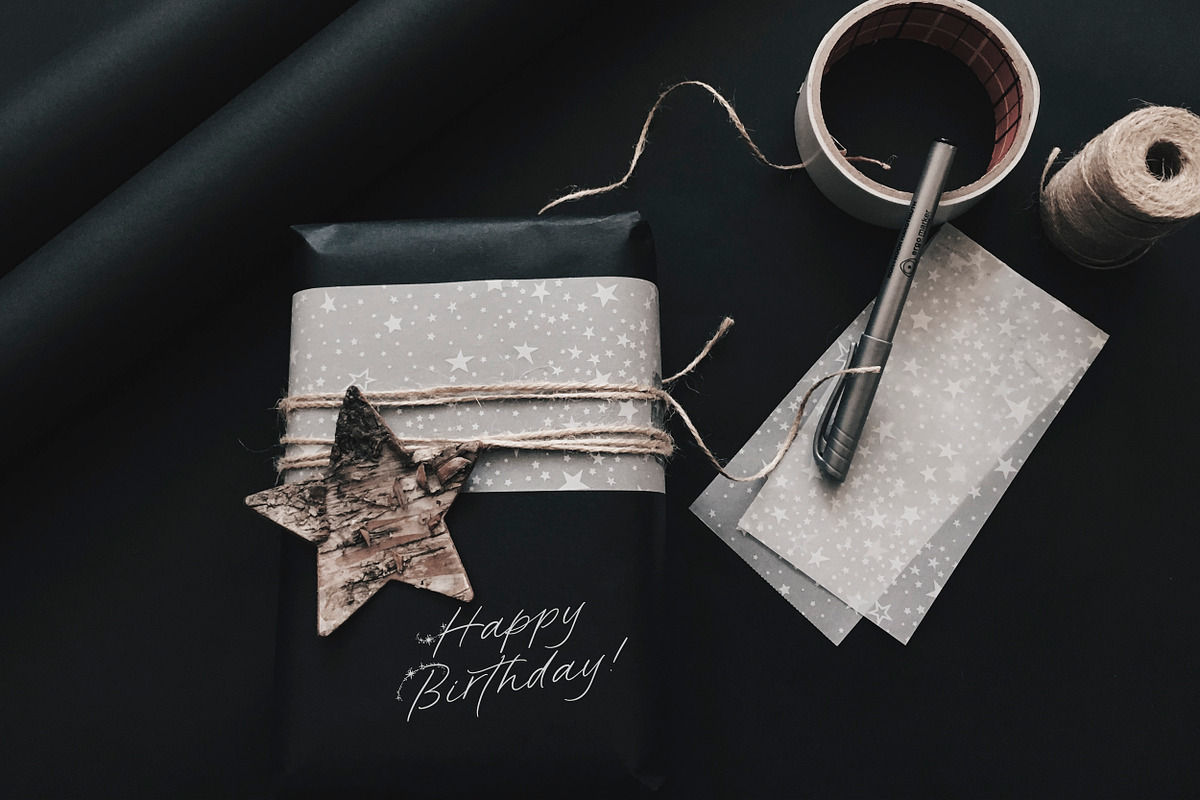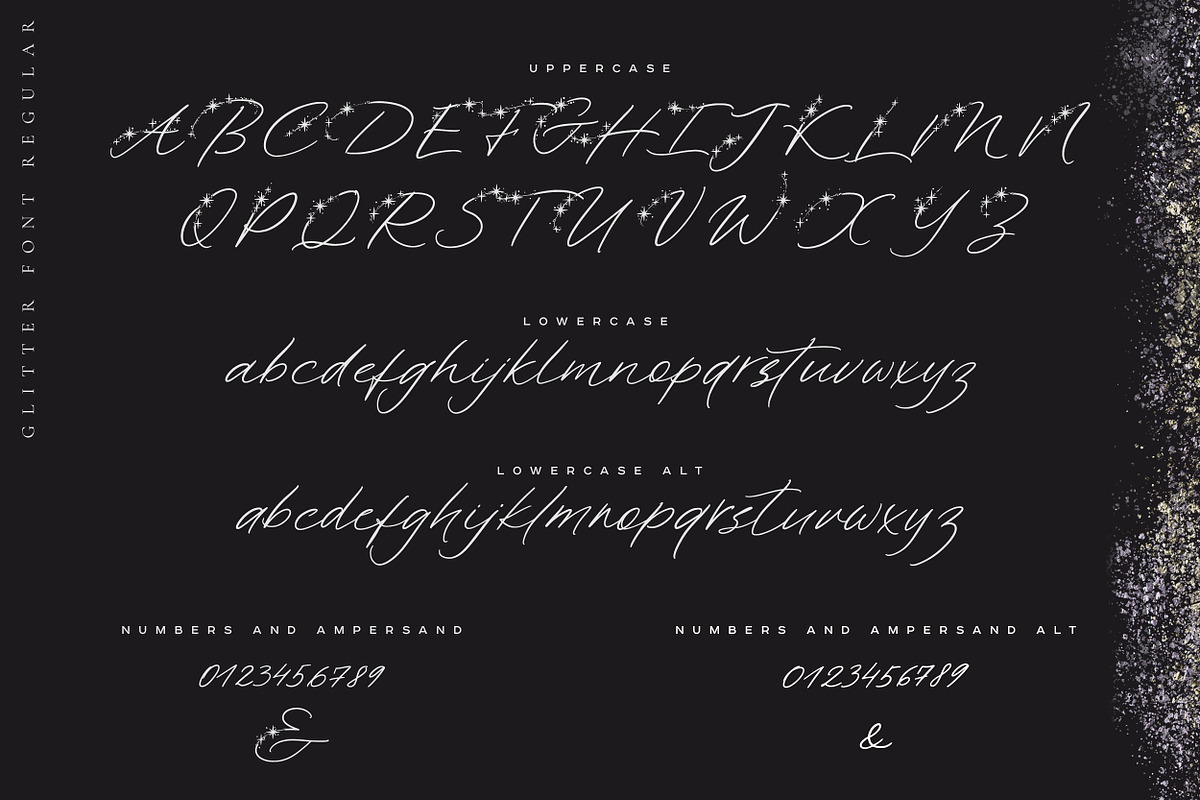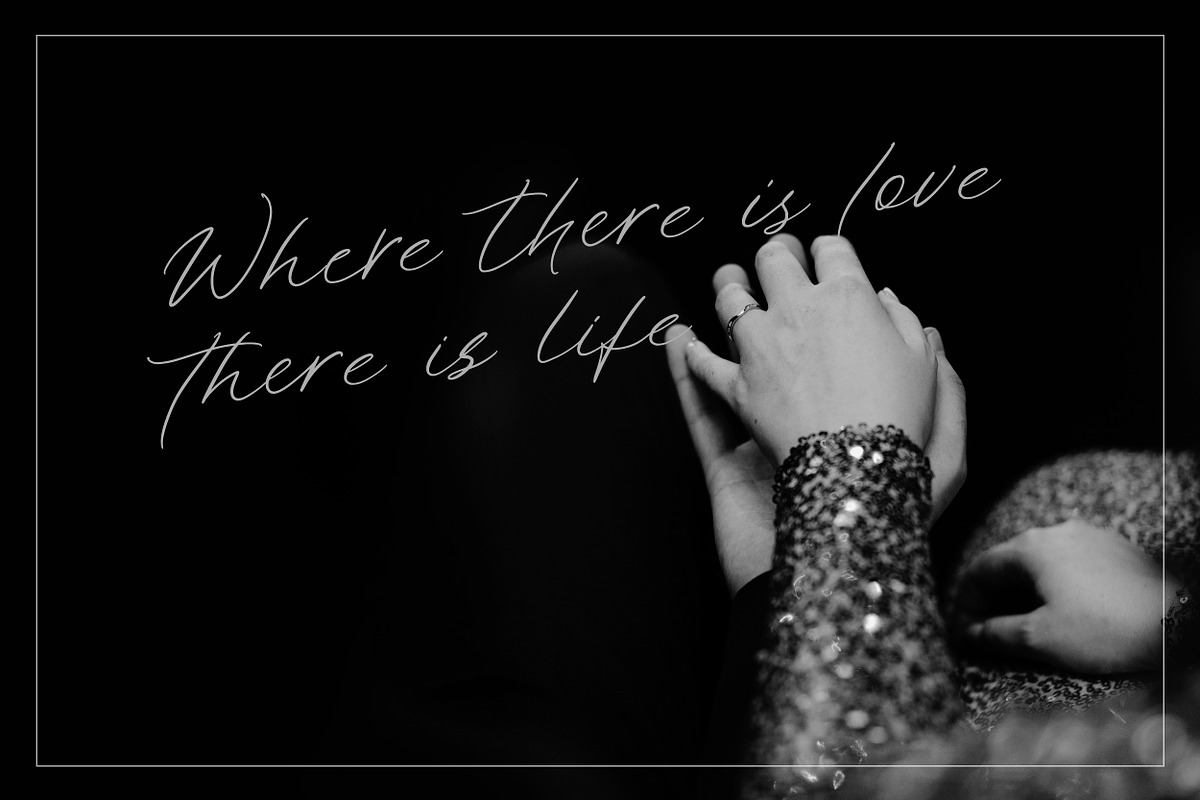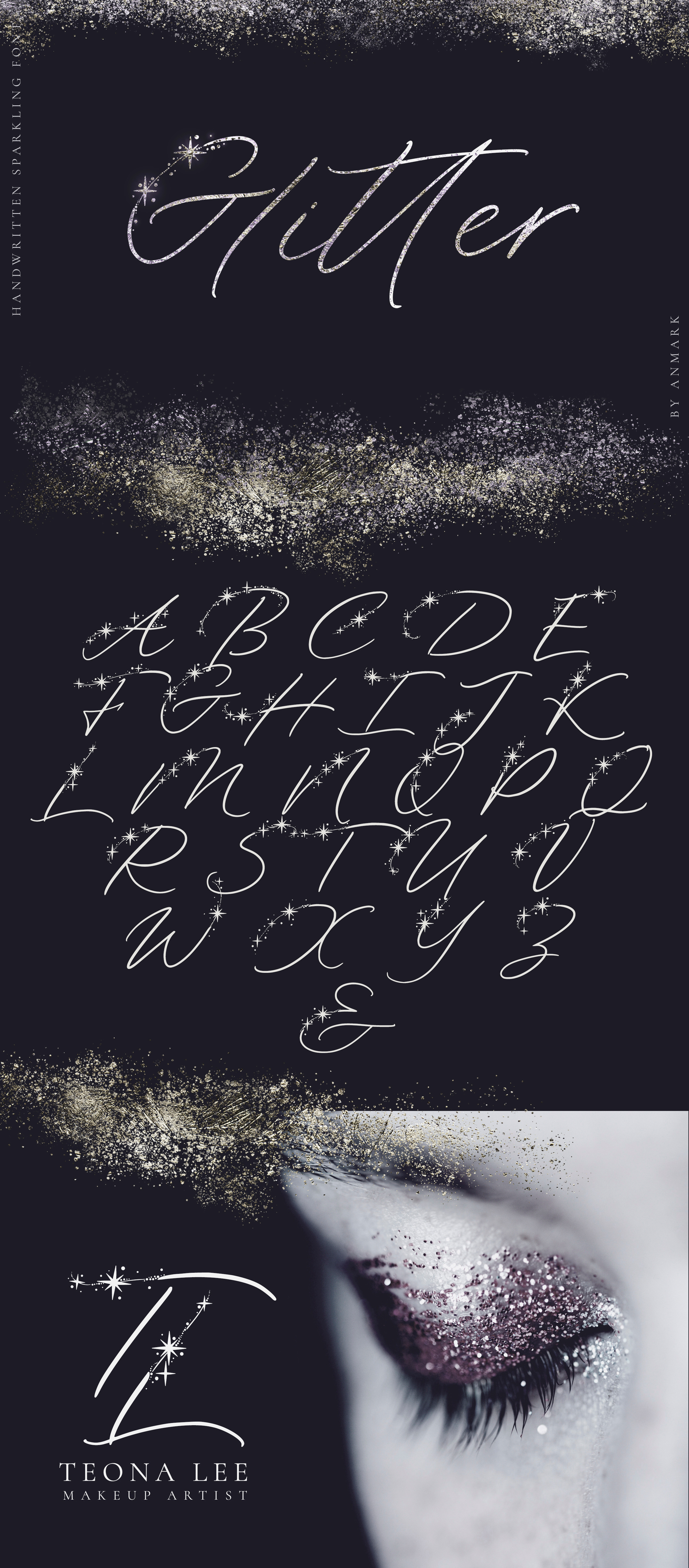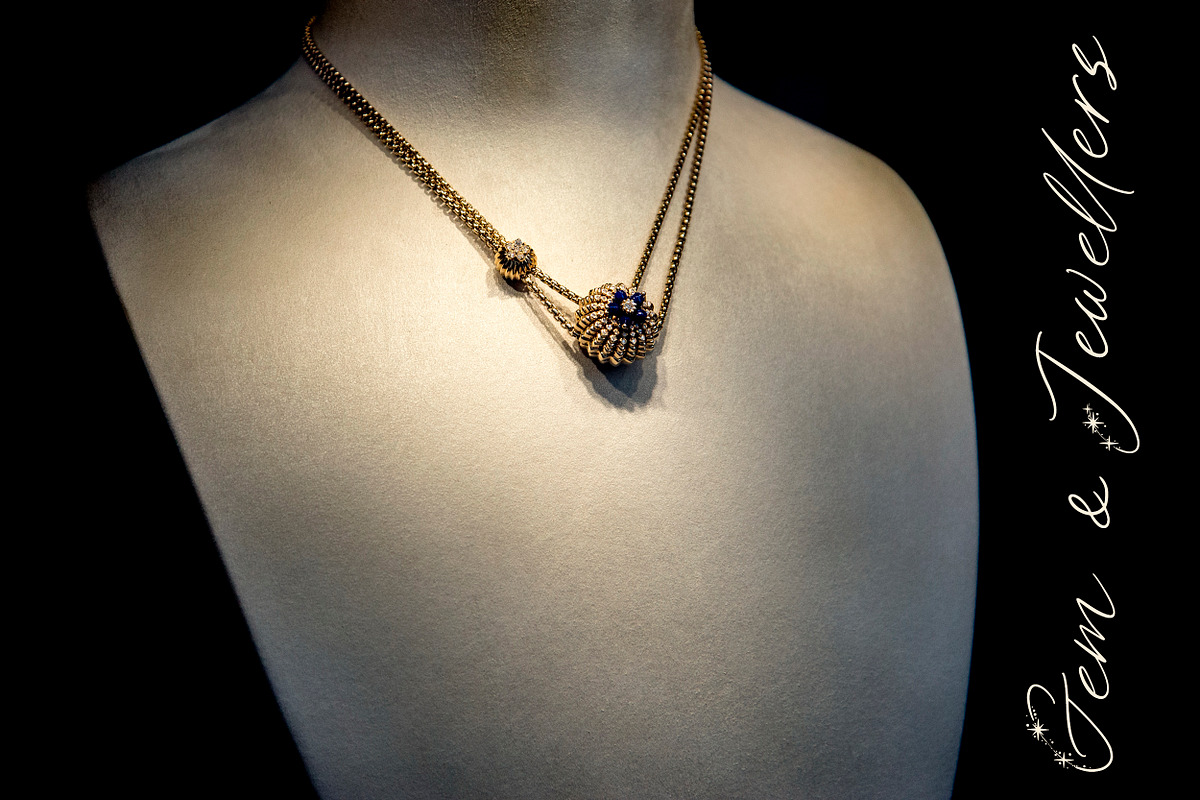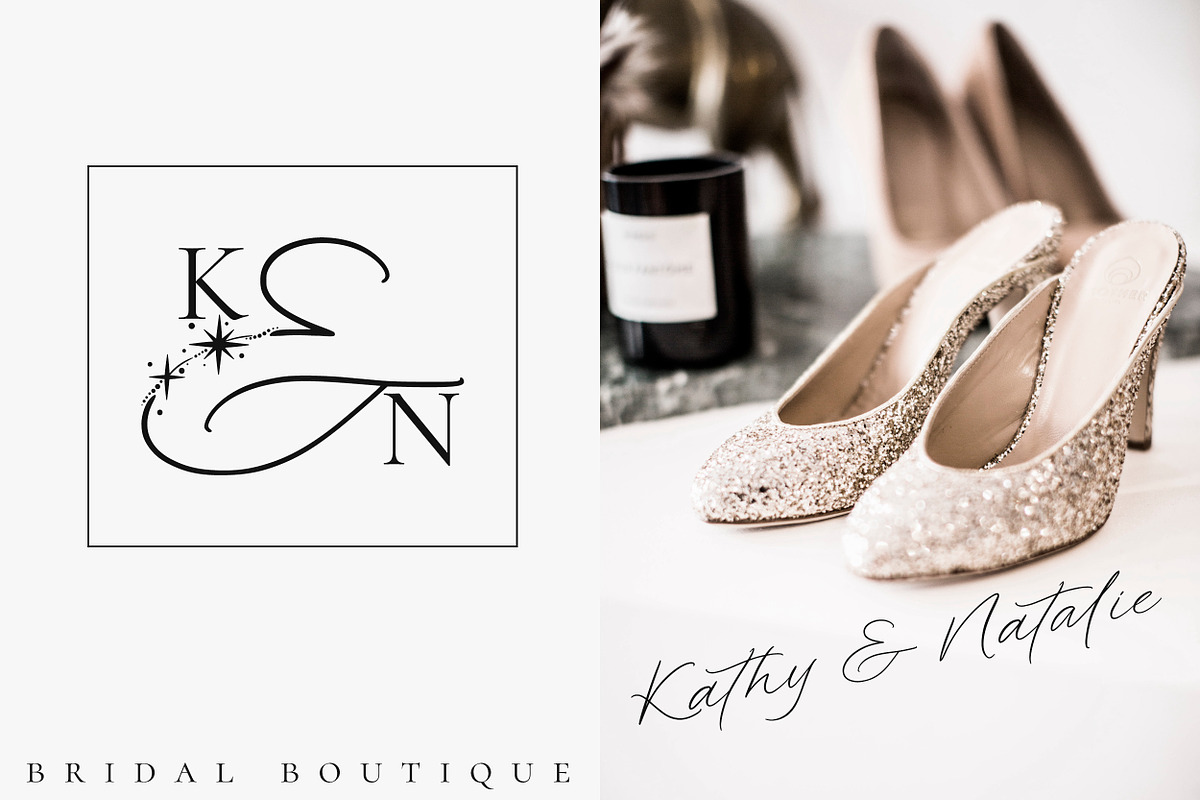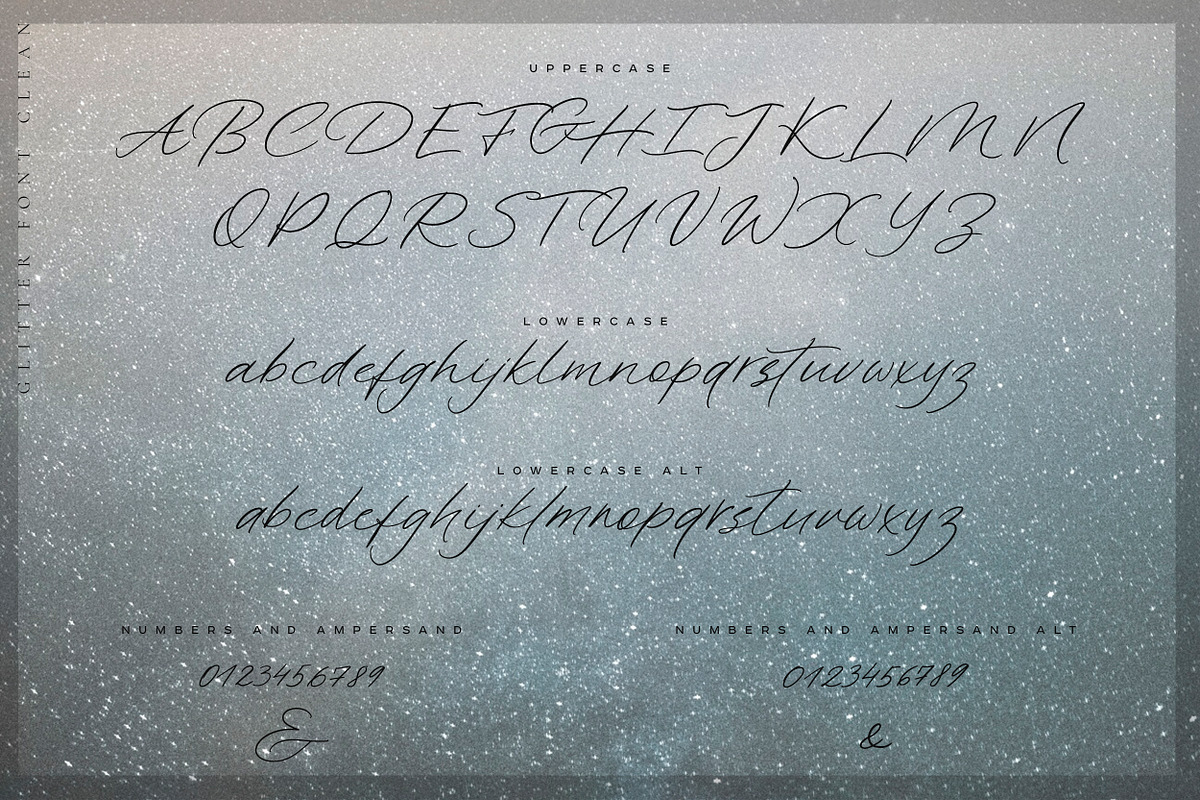
Glitter. Festive font with sparks
Hello! I’m pleased to introduce my handwritten sparkling font Glitter.
Glitter comes in two styles: Regular and Clean .
Glitter Regular is an elegant, decorative, handwritten font. Uppercase letters with glitter and sparks are ideal for your wedding monograms and logos. Use this font for Christmas card, wedding invitation, branding, packaging, magazines, makeup business, social media, quotes, restaurant menu, greeting cards, flyer, banner, web header and many more.
Glitter Clean. This feminine calligraphy font style perfect for wedding design projects, instagram, watermarks, titles, birthday invitation, signatures, letterpress address, jewelry, hotel business and other. You can use it for long texts or short phrases.
This font includes stunning ligatures and full set of lowercase alternates to make your text as close to a natural handwritten script as possible.
Glitter Font has extensive language support, it includes English and European latin-based languages: French, Italian, Spanish, Portuguese, German, Swedish, Norwegian, Danish, Finnish and other.